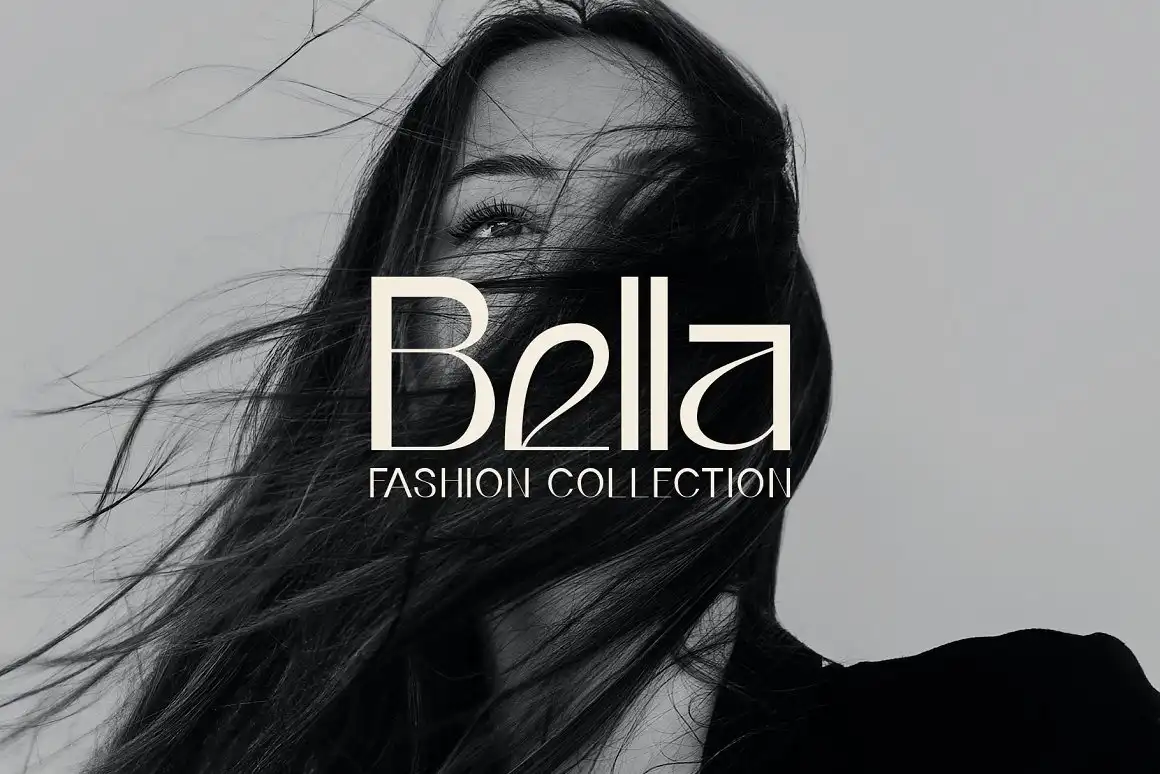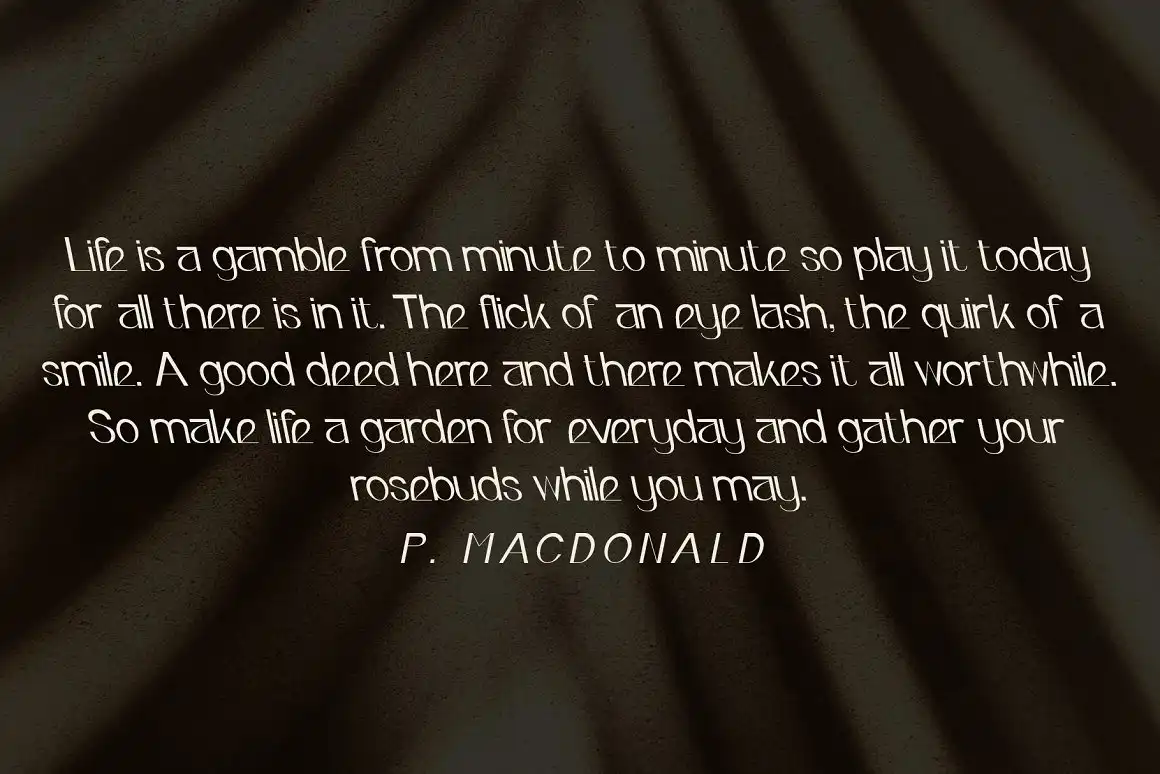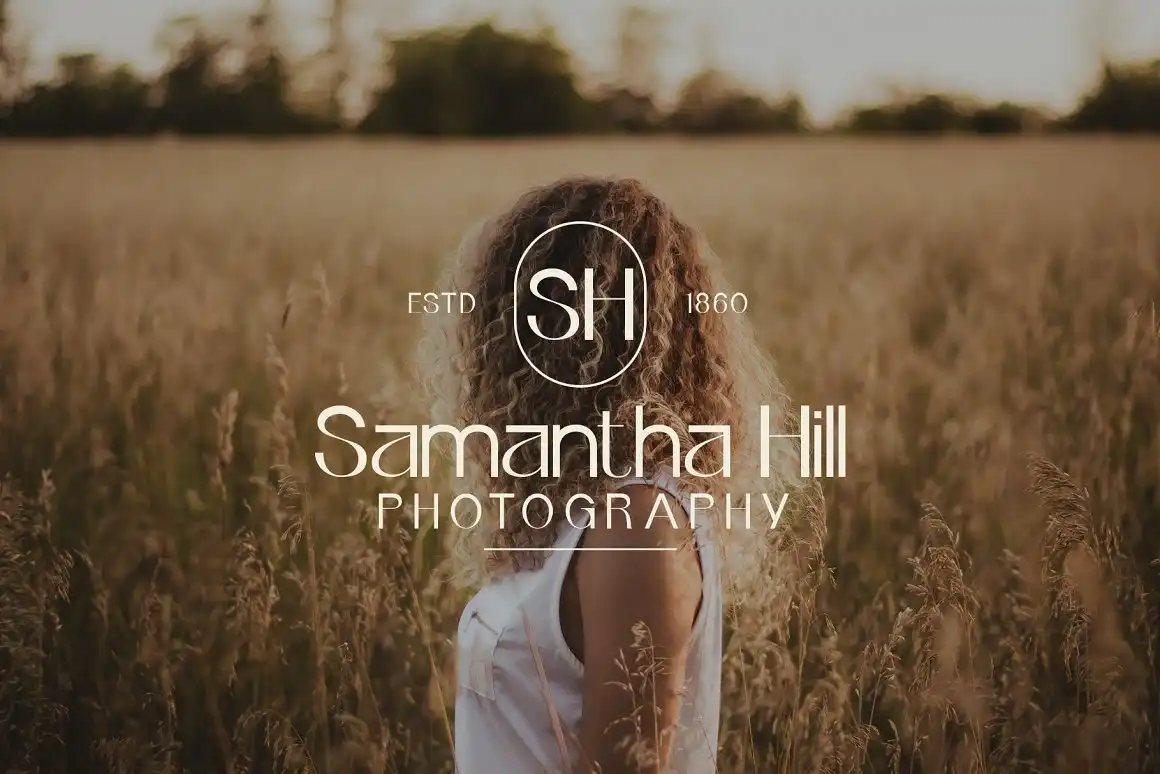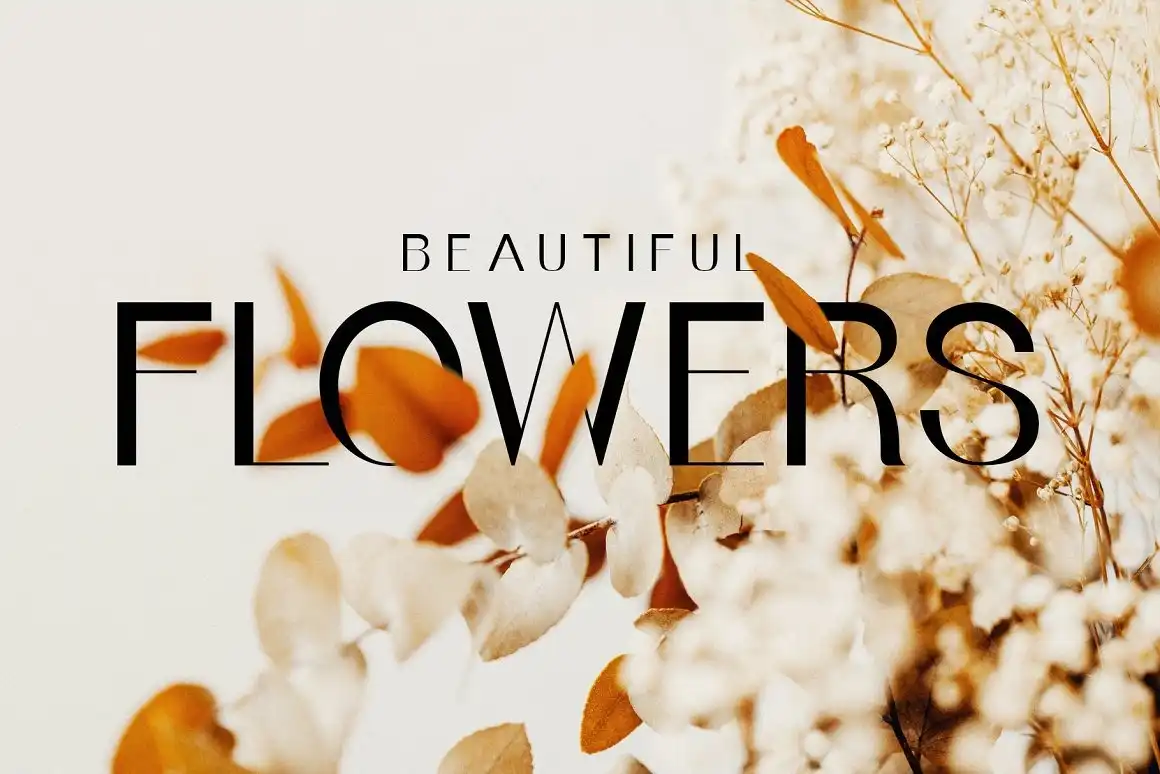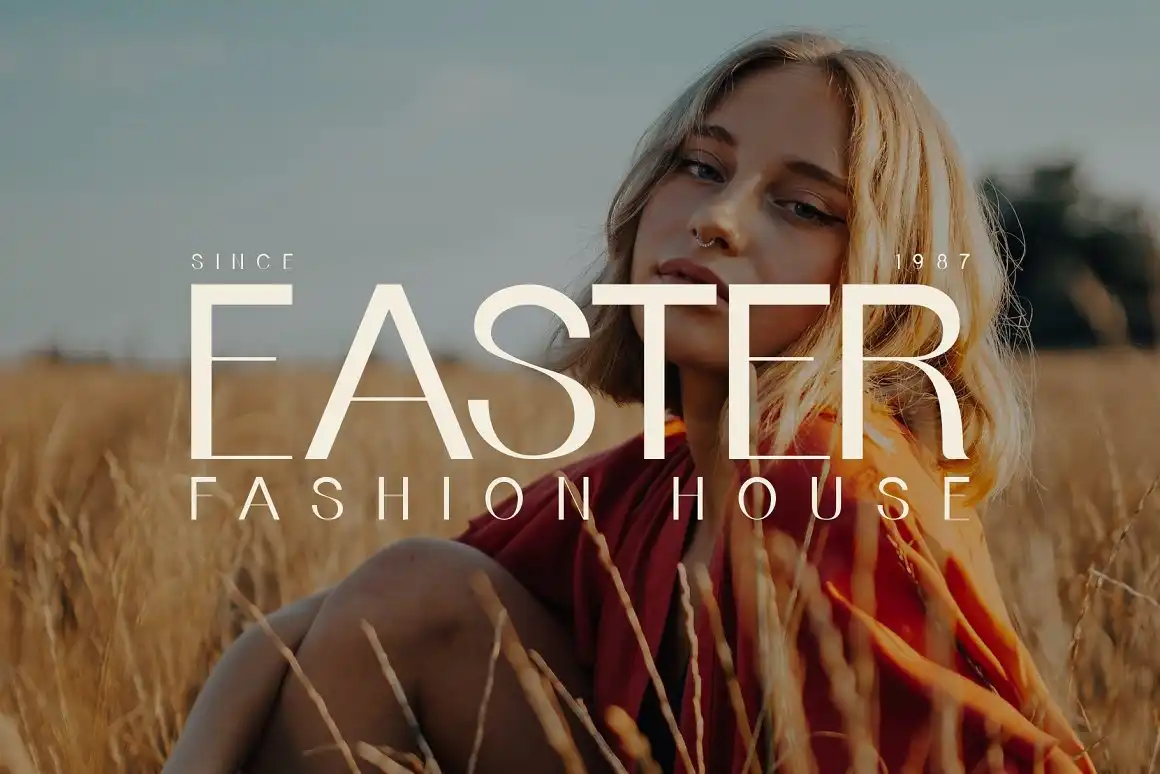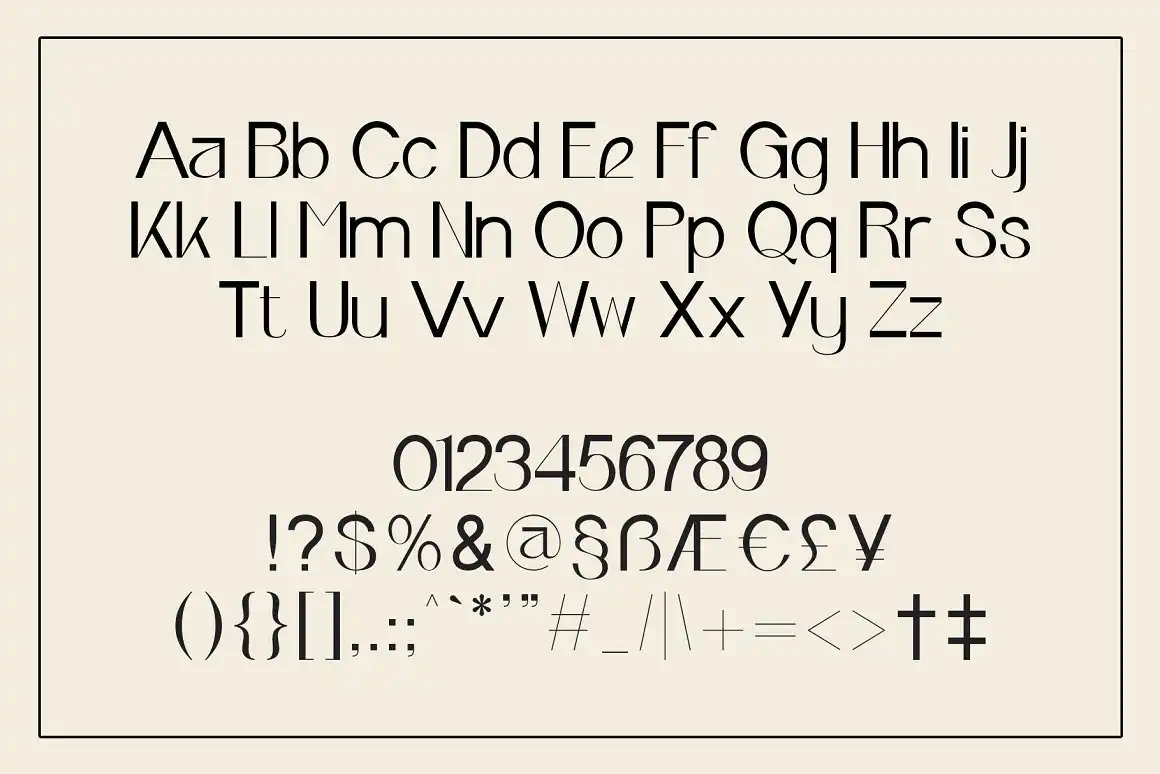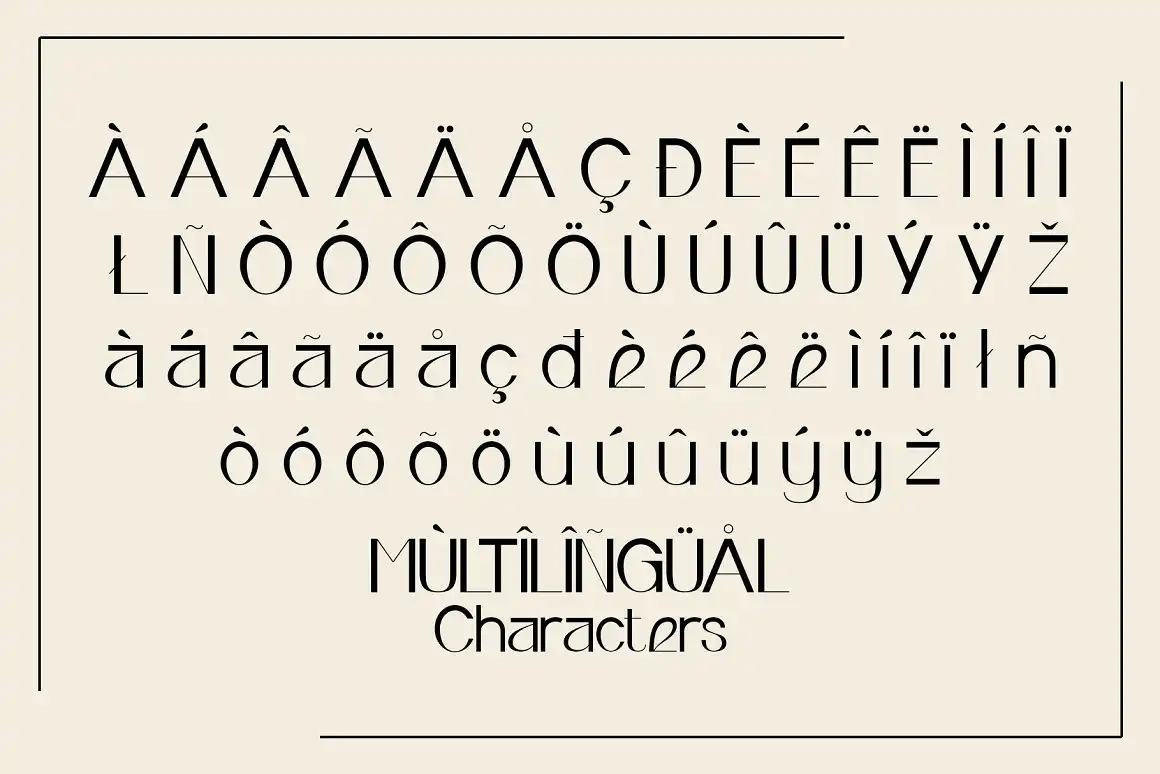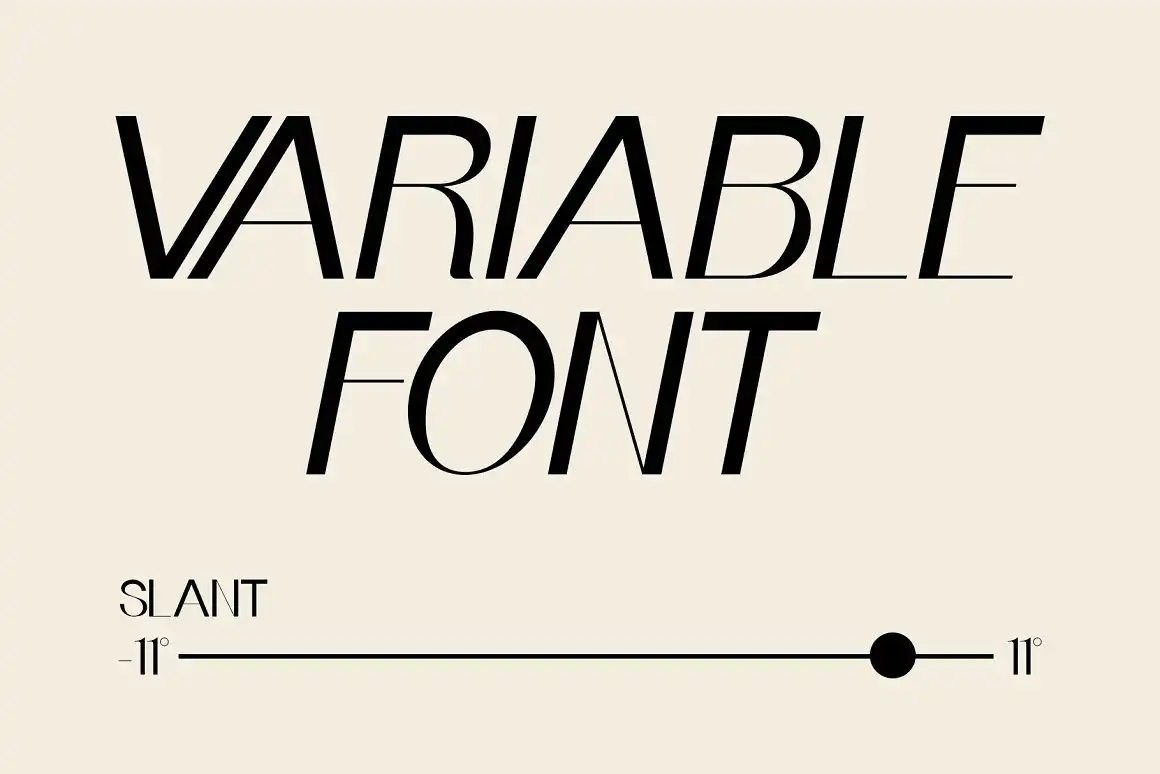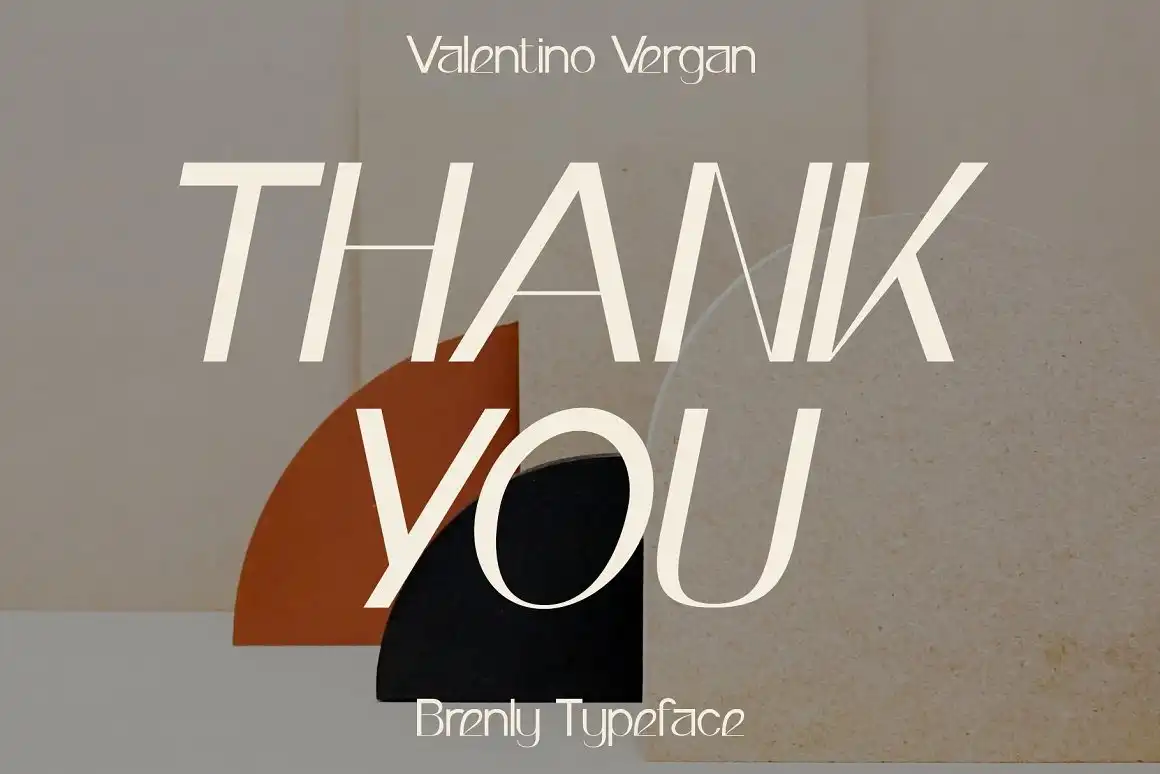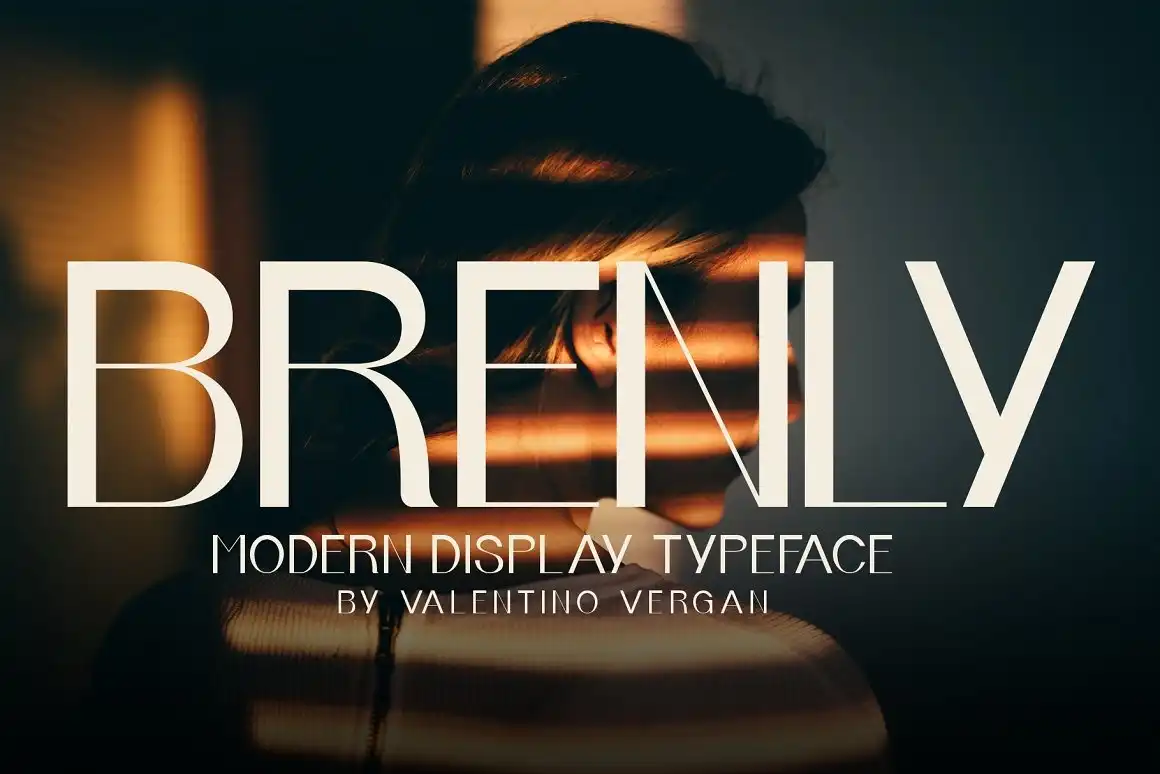
Brenly is a stunning digital download that offers instant access to a modern variable sans serif font. With its unique and elegant design, Brenly is perfect for creating eye-catching posters, sophisticated branding packages, and memorable logos. The variable version allows for easy adjustments between oblique and reversed oblique slants, making it a versatile choice for any creative project. ✨
This beautiful font family is not just about aesthetics; it’s about flexibility too! Variable fonts like Brenly allow you to customize and play with typography in ways traditional fonts cannot. Whether you’re working on a chic editorial layout or a luxurious wedding invitation, Brenly is here to elevate your designs! 💖
- Variable Font: Adjust slants smoothly from oblique to reversed oblique, giving you creative freedom.
- Comprehensive Character Set: Access uppercase and lowercase letters, numbers, punctuation, ligatures, and multilingual symbols.
Graphic designers, branding experts, and anyone in need of a stylish font for projects like logos, invitations, and editorial designs will find Brenly to be an invaluable asset. 🌟